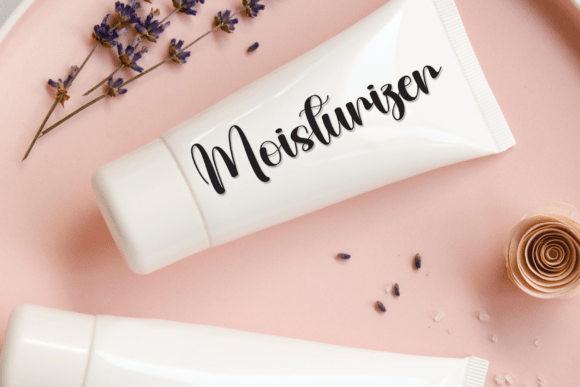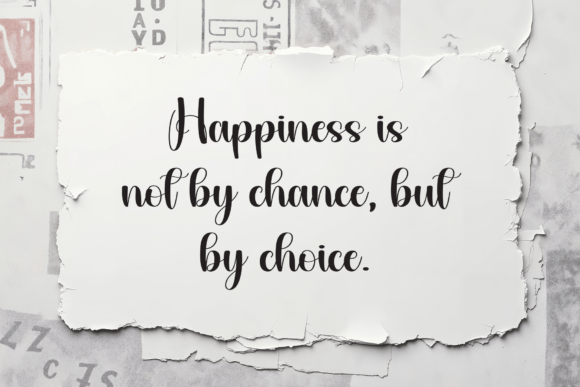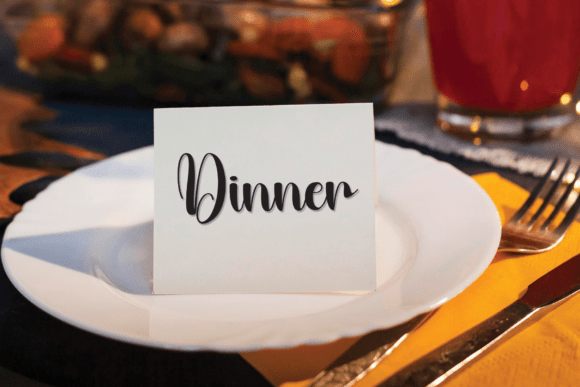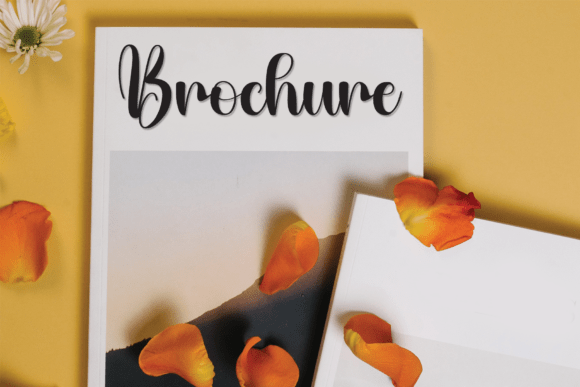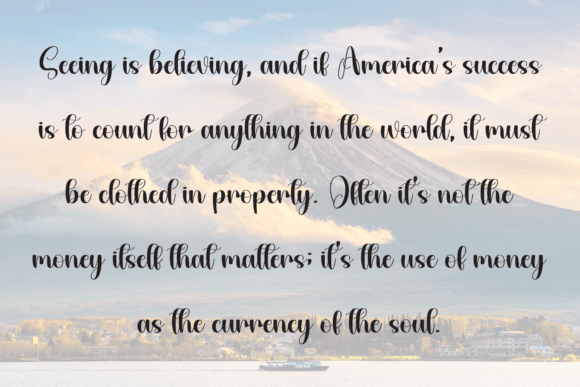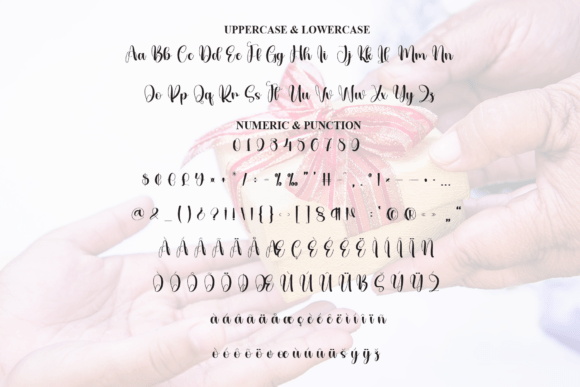
The Gift of Typography: Celebrating with the Giving Font
As designers, we’ve all been there – working on a project, pouring our hearts into every detail, and then getting stuck on one thing: finding the perfect font. I recall a particularly stressful holiday season, tasked with creating a set of festive greeting cards for a client. The design was almost done, but the font just wasn’t right. That’s when I stumbled upon Giving, a playful handwritten script font that instantly captured the warmth and intimacy I was looking for.
With its bold, expressive downstrokes and elegant, sweeping curls, Giving felt like the perfect fit for my project. But what really sets it apart is its fluid rhythm and organic “signature” style, making it an ideal choice for projects that need to convey sincerity and kindness.
A Closer Look: What I Love About Giving
- ✨ Warm and inviting: Giving has a unique ability to make your designs feel like a hand-wrapped gift.
- ✅ Elegant capital letters: The distinctive capital letters with sweeping curls add a touch of sophistication to any design.
- 🎉 Festive and playful: The bold downstrokes and expressive lines make Giving perfect for holiday-themed projects or designs that need a bit of whimsy.
- 💕 Conveys intimacy and sincerity: The fluid rhythm and organic style of Giving make it ideal for projects that require a personal touch.
Honest Review: A Few Quirks to Consider
While Giving is an amazing font, there are a few things to keep in mind:
- 🤔 Limited use in body text: Due to its expressive nature, Giving works best as a display font or in short paragraphs.
- ⚠️ Requires attention to spacing: To get the most out of Giving, you may need to adjust the spacing between letters to ensure it looks its best.
- Explore the OpenType features, such as stylistic alternates and glyphs, to add more variety to your text.
The Story Behind Giving: Designer Inspiration
Giving was designed with the spirit of generosity in mind. The creator wanted to craft a font that would evoke the warmth and kindness of a hand-written note or a carefully wrapped gift. With its bold, expressive lines and elegant curls, Giving is the perfect way to add a touch of personality to your designs.
| Font Name | Giving Font |
| What makes Giving unique? | Giving’s bold, expressive downstrokes and elegant, sweeping curls make it a standout font. |
| Is Giving suitable for body text? | While Giving can be used for short paragraphs, it’s best suited as a display font or for headings. |
| Does Giving support OpenType features? | Yes, Giving supports OpenType features, including stylistic alternates and glyphs. |